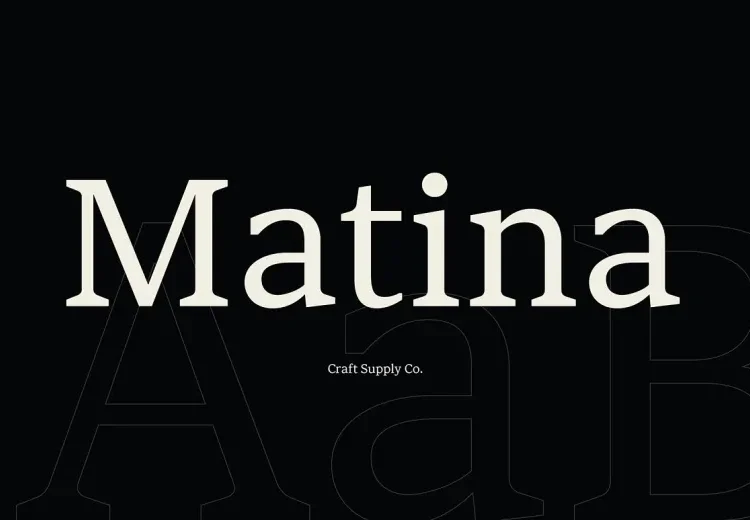
Matina Font
Matina Serif Font is a thoughtfully crafted typeface, designed to excel in smaller text applications such as magazines, novels, pocket books, and novellas. Its moderate contrast, tall letterforms, and generous counters ensure exceptional readability, even at body text sizes ranging from 7pt to 14pt.
This font is not limited to small text but also performs beautifully in both long-form and compact content. Whether you’re working on full-page layouts or concise snippets, Matina’s clear structure and refined details make reading a pleasurable experience, blending legibility with elegance.
Perfect for editorial designs, publishing projects, and professional layouts, Matina Serif brings clarity and sophistication to every project. Its energy enhances comprehension, making it not only readable but also aesthetically appealing.